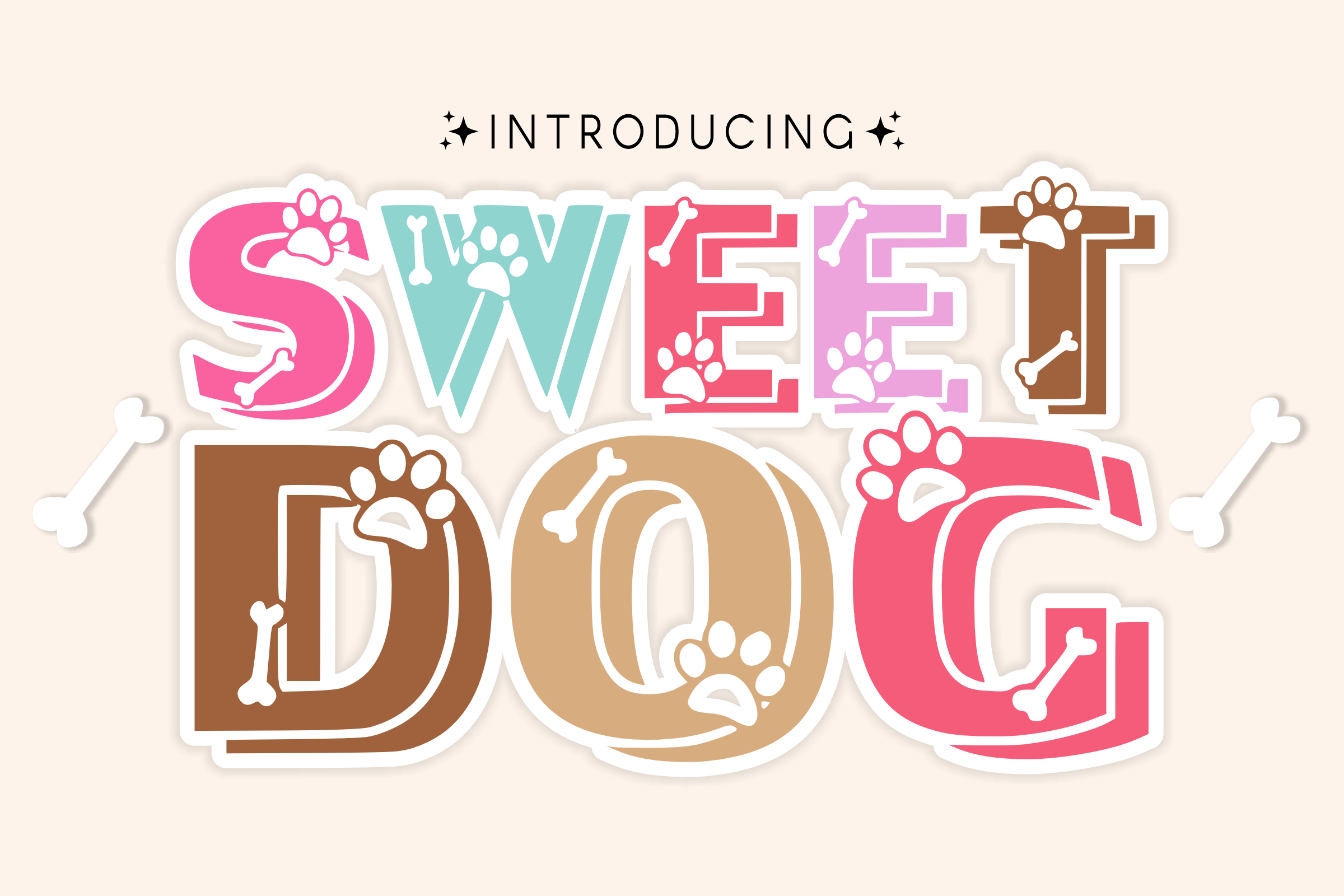
Sweet Dog - Cartoon Font Types
Introducing “Sweet Dog” is a cute and modern dog-themed font; each character is unique, so it is easy to recognize. Perfect for sublimation designs for t-shirts, mugs, tote bags, animations, comic titles, and more. Pour your imagination here!